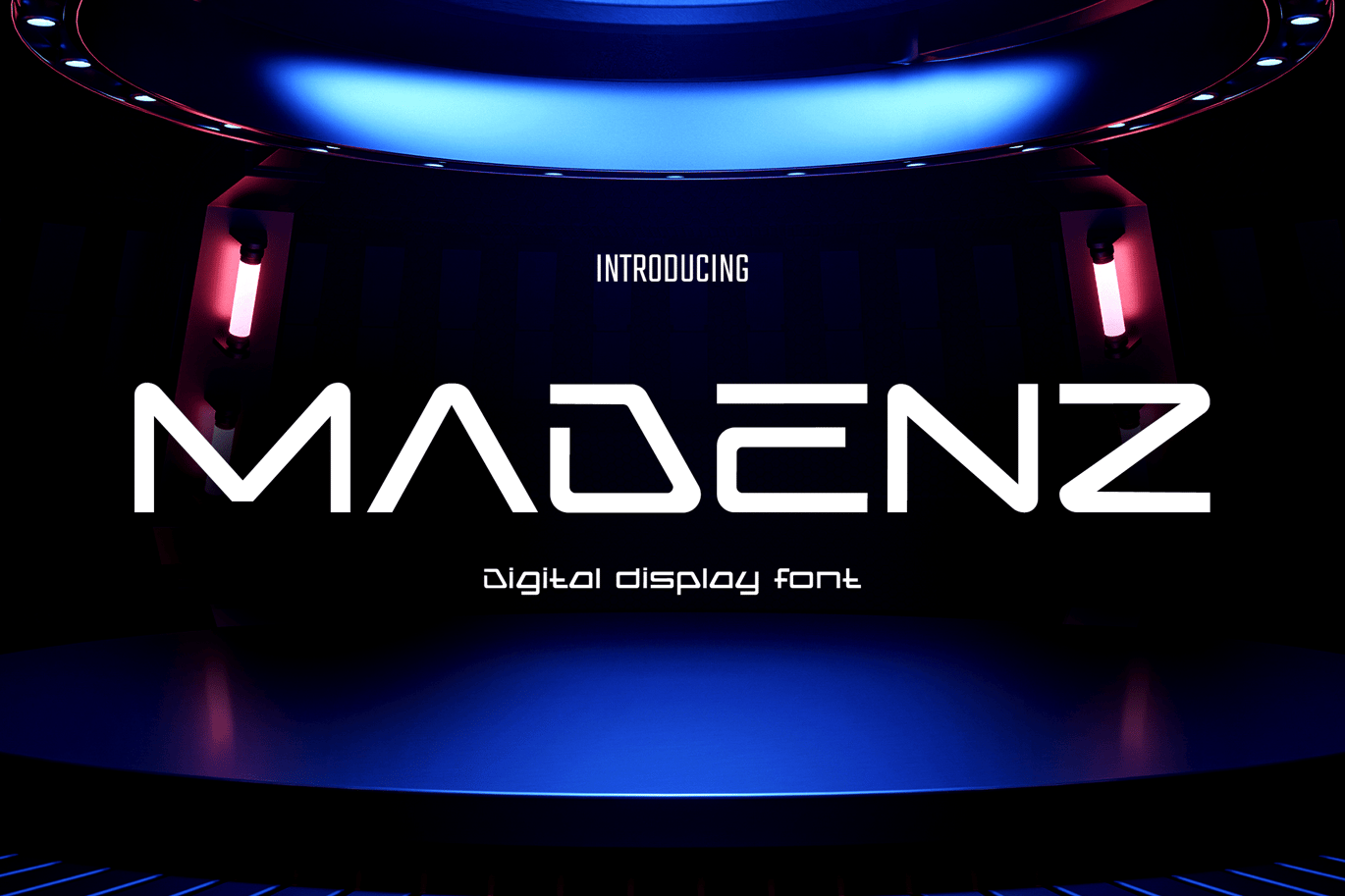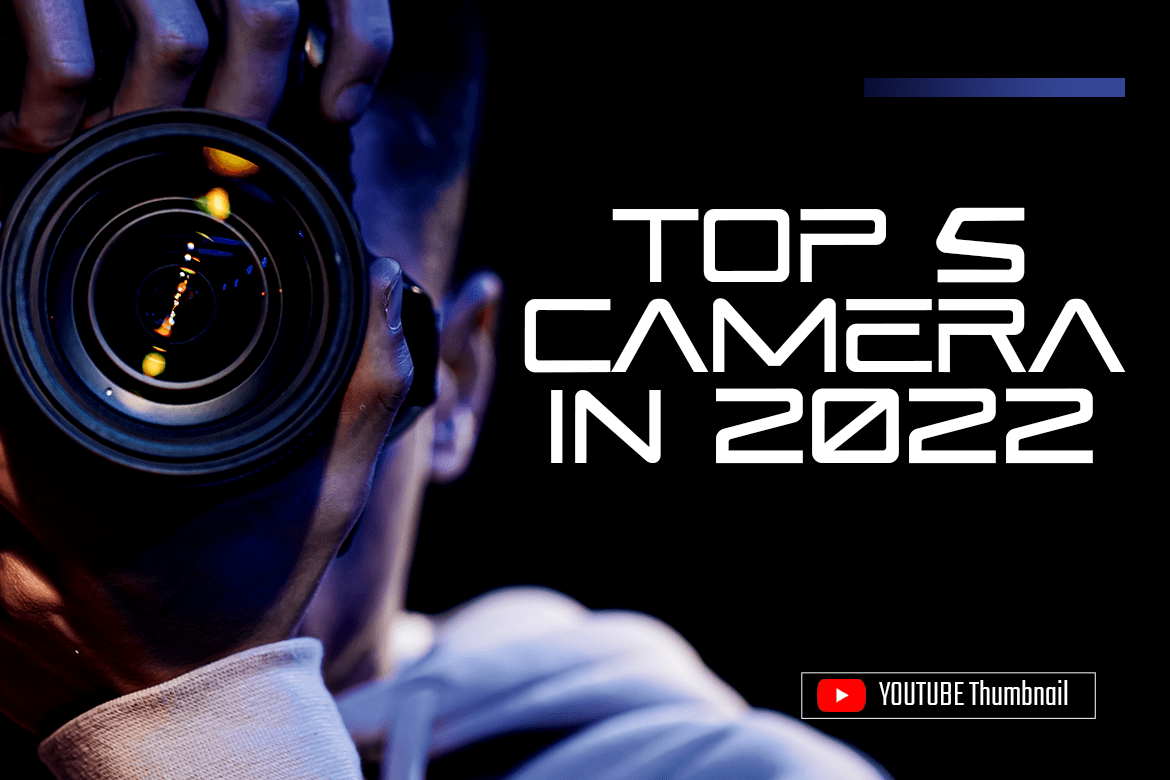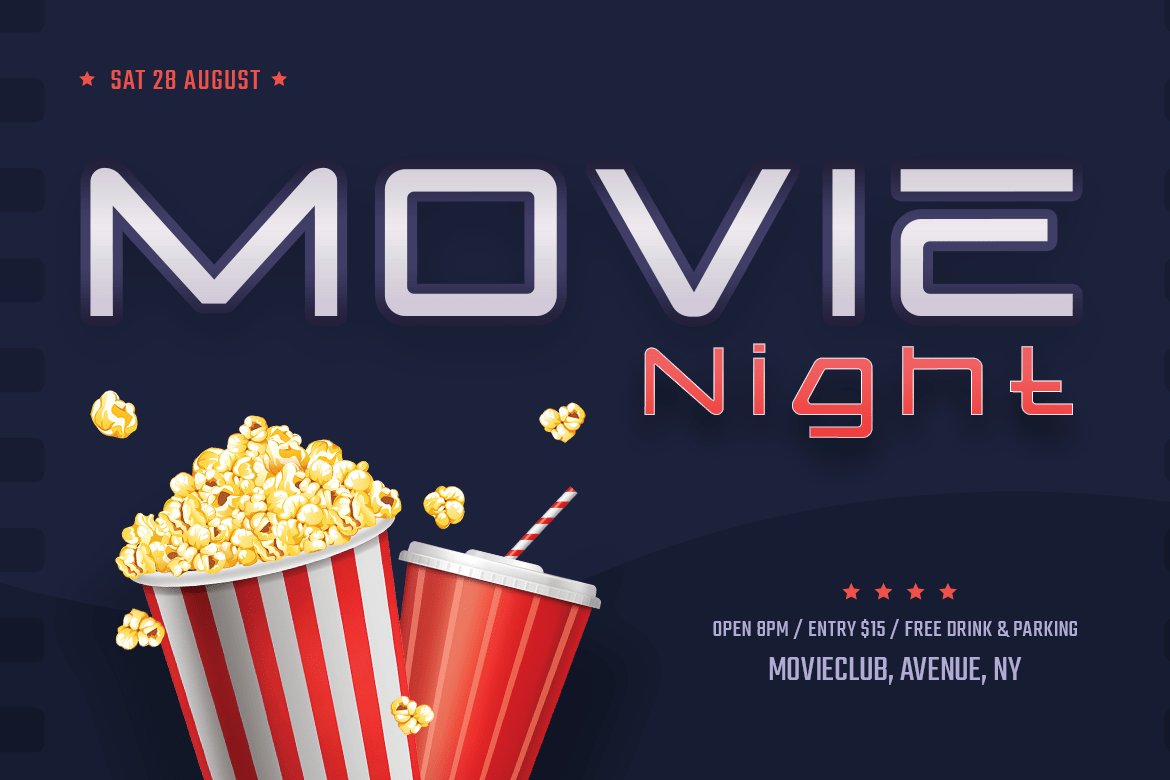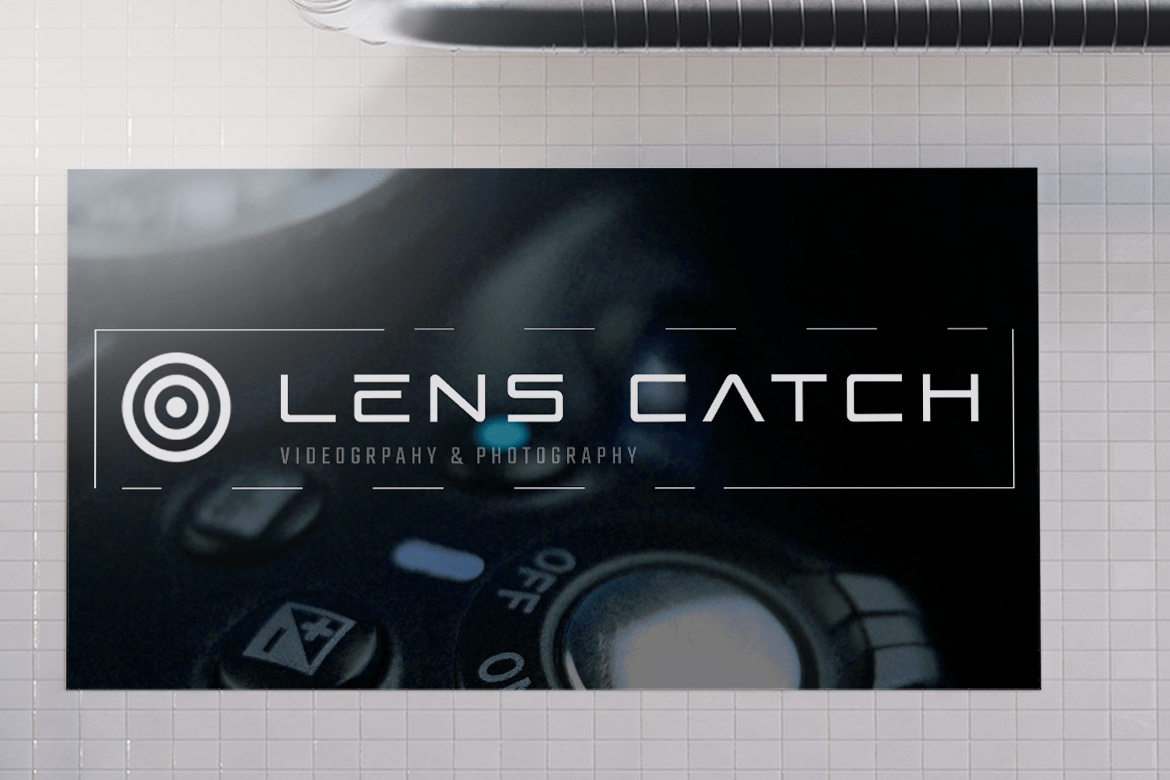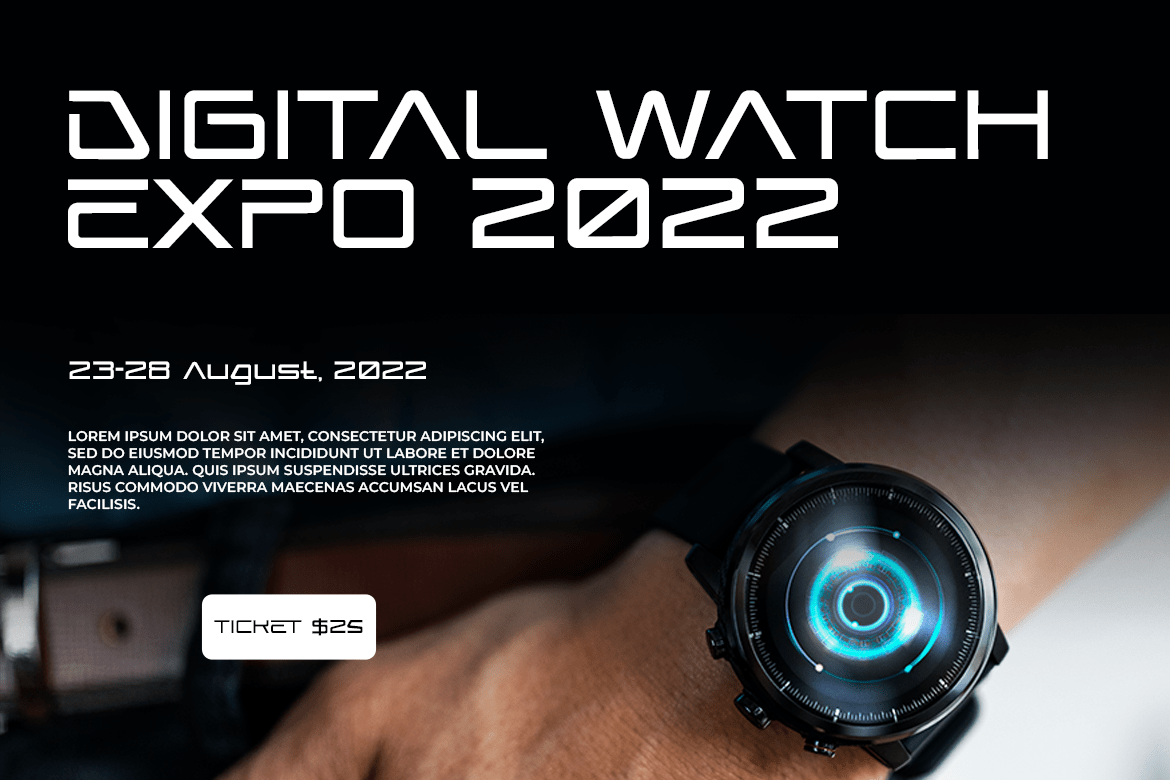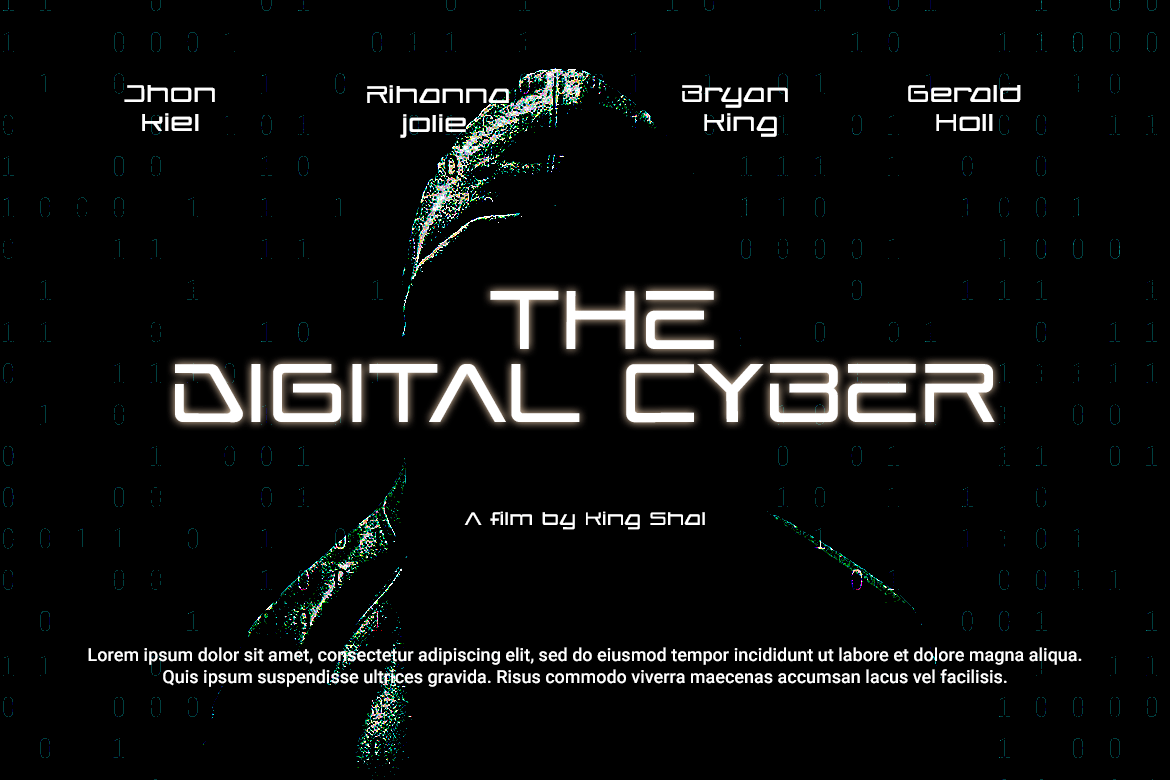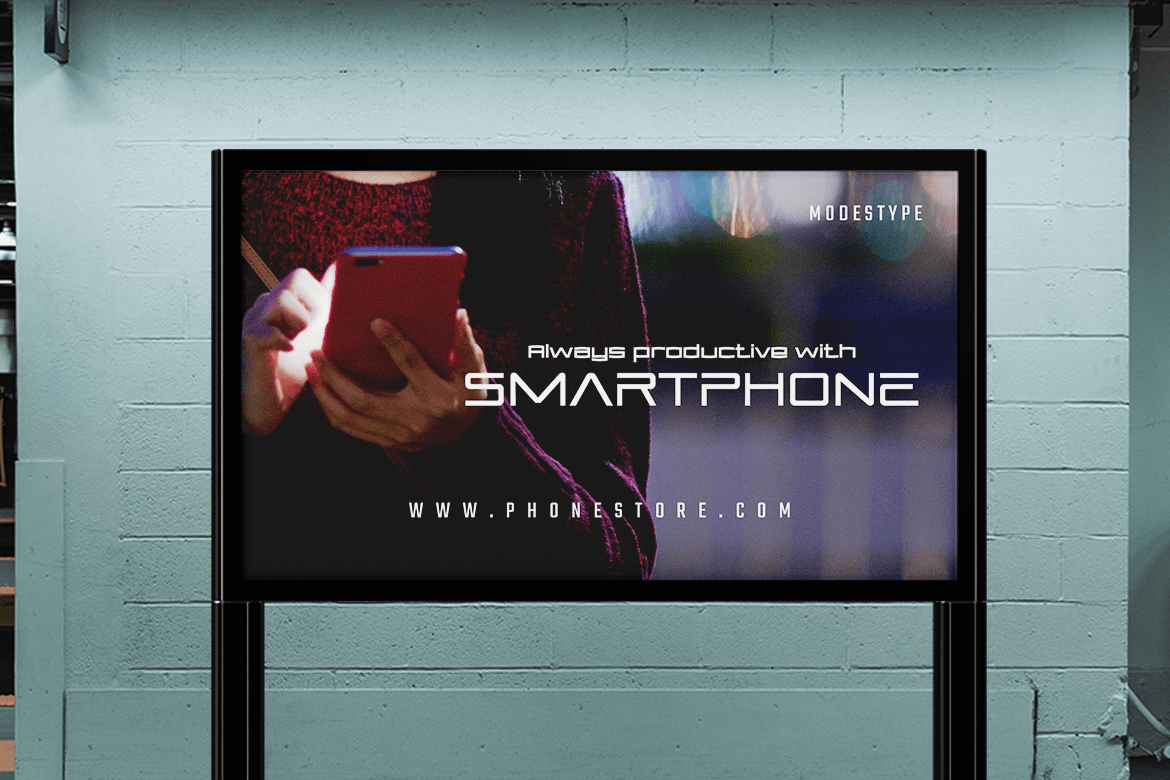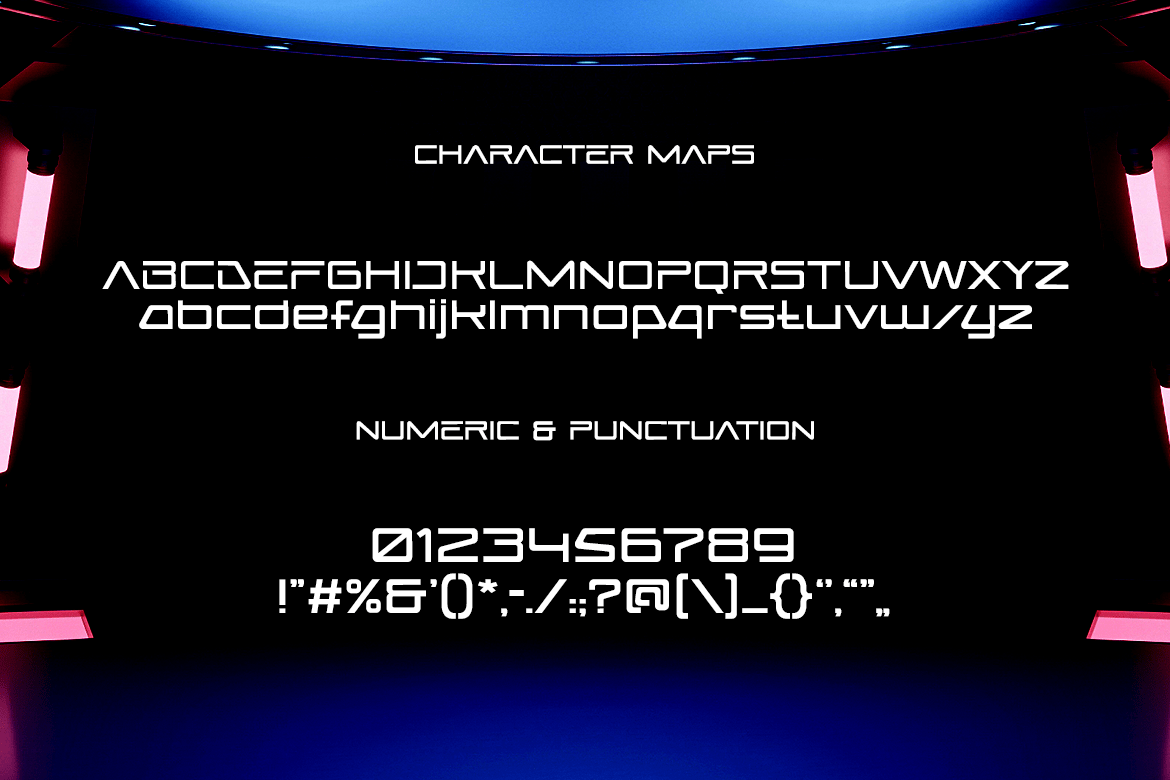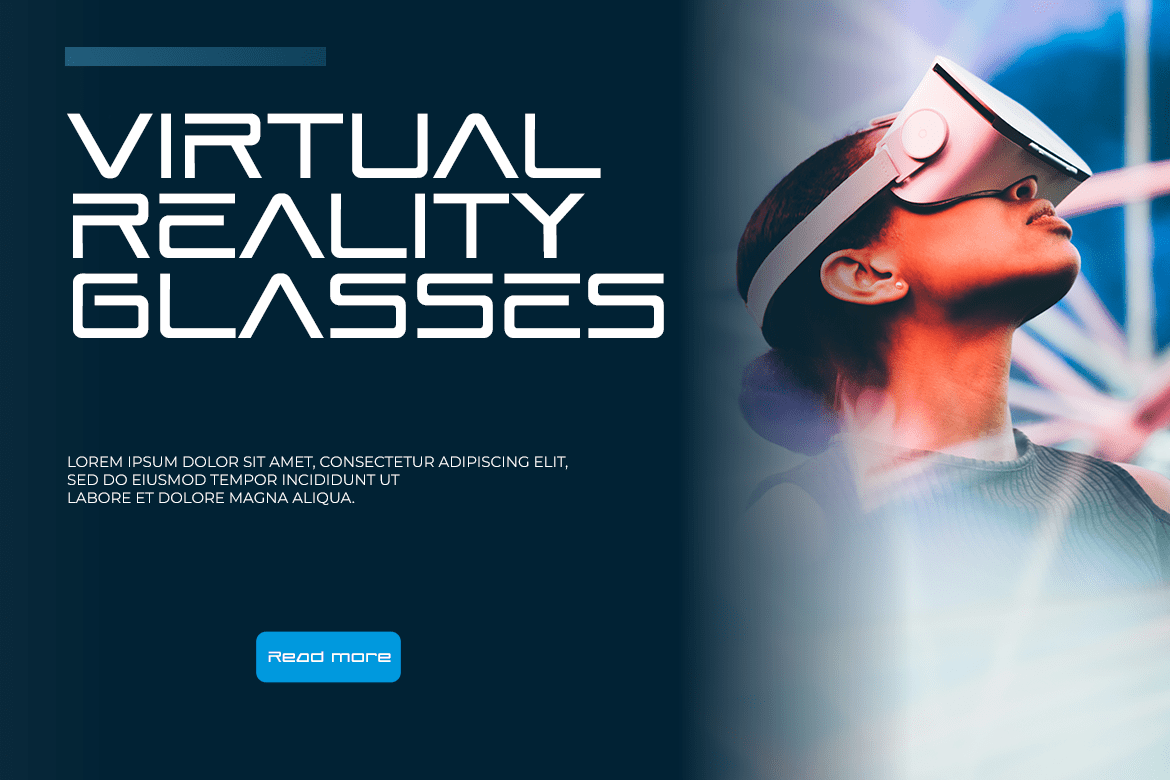
MADENZ – Digital Display Font
The digital world and metaverse is here. Neither you like it or not, it will influence our recent world with huge pace of development.
Suit perfectly for science segmented magazine, poster, movie title, music poster, youtube covers, youtube thumbnails, social media page covers and so on…